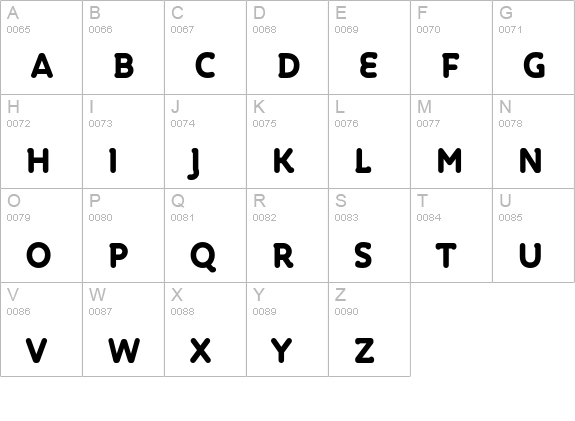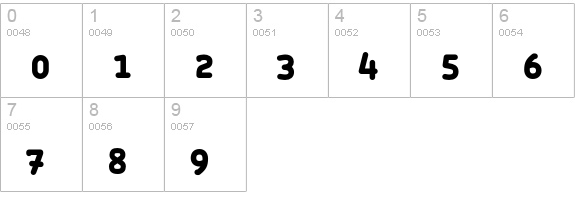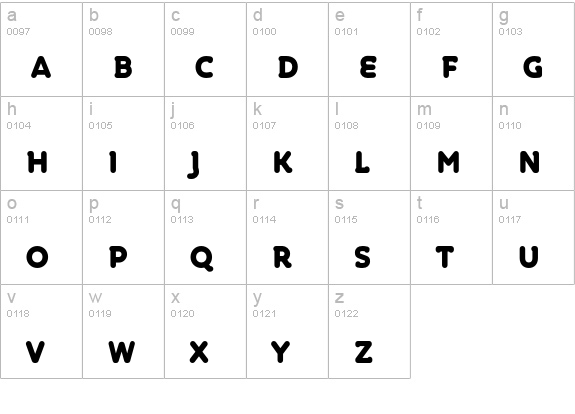
Roice-BlackSC Font Details
The Roice-BlackSC font is a modern and stylish typeface that exudes elegance and sophistication. Its sleek design and clean lines make it perfect for a wide range of design projects, from branding to editorial layouts. The bold and sharp letterforms of Roice-BlackSC command attention and add a touch of flair to any text. Best of all, Roice-BlackSC is available for free download at FontsMarket.com. This means that you can easily access this stunning font without any cost, making it a valuable addition to your font library. Whether you are a professional designer or just starting out, Roice-BlackSC offers a versatile and eye-catching option for your creative projects. Don't miss out on the opportunity to enhance your designs with this beautiful and free font today!